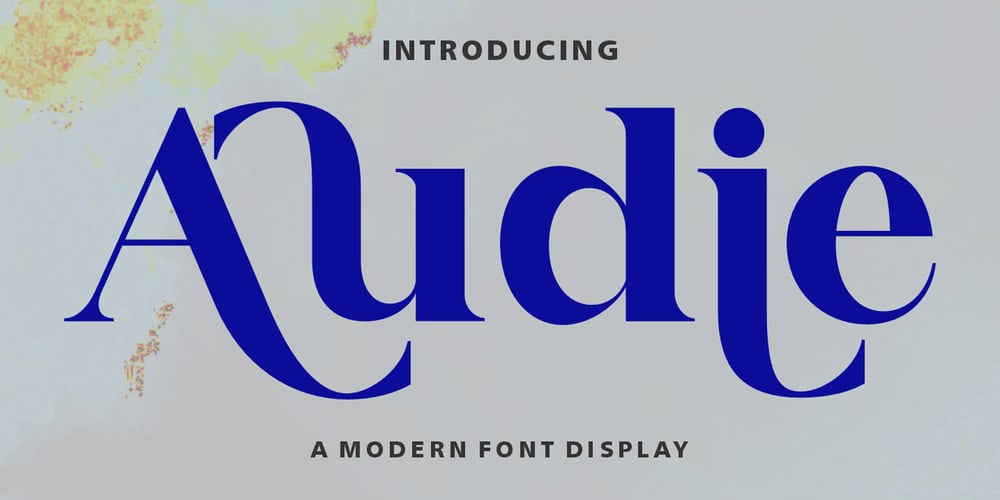
Audie Serif Font Family was designed by Yusliana M Isa and published by Gian Studio. Audie Serif contains 1 styles and family package options. Audie Serif is a modern serif font. Consisting of styles designed for strong headlines, this font is suitable for use in different areas, from banners and posters, newspapers and magazines, logos and brand identities, to movie and game titles.If you are looking for a modern serif style that can be effective in branding, you can easily use this font.Whit these features, it will be effective in creating alternatives in your projectsIdeal for posters, newspaper, movie title and magazines, magazine covers, editorials, headlines, websites, logos, branding, advertising and more.You can create your unique designs with this font.If you have a question, please contact me.Have a good time.Designers: YuslianaPublisher: Gian StudioFoundry: Gian StudioDesign Owner: Gian Studio